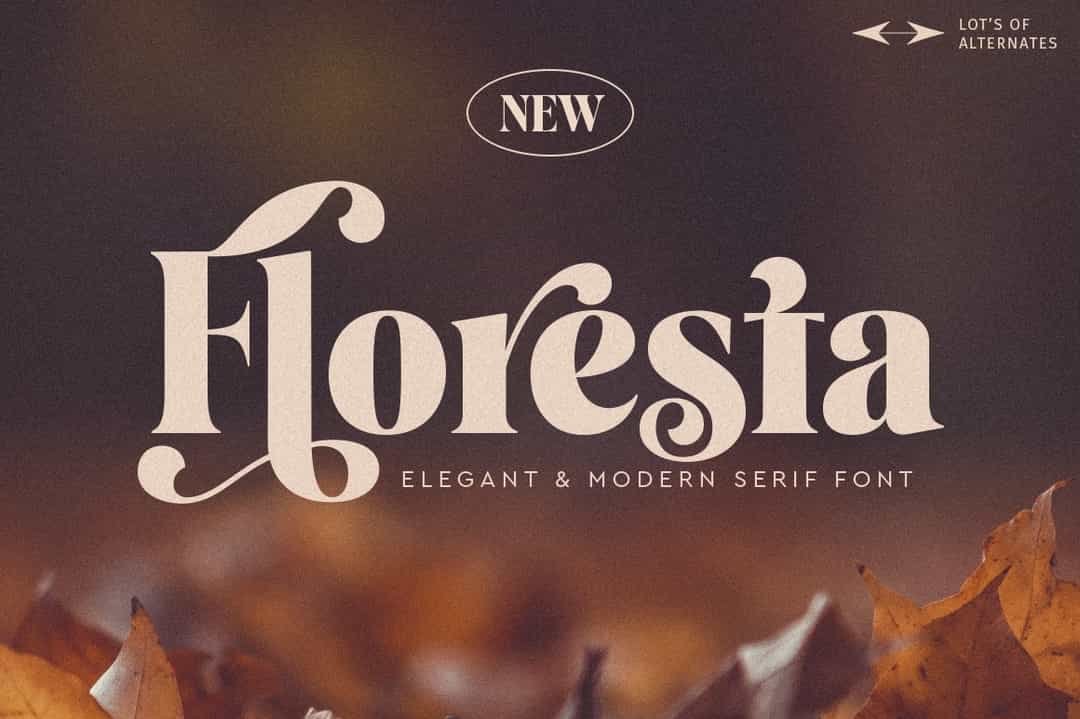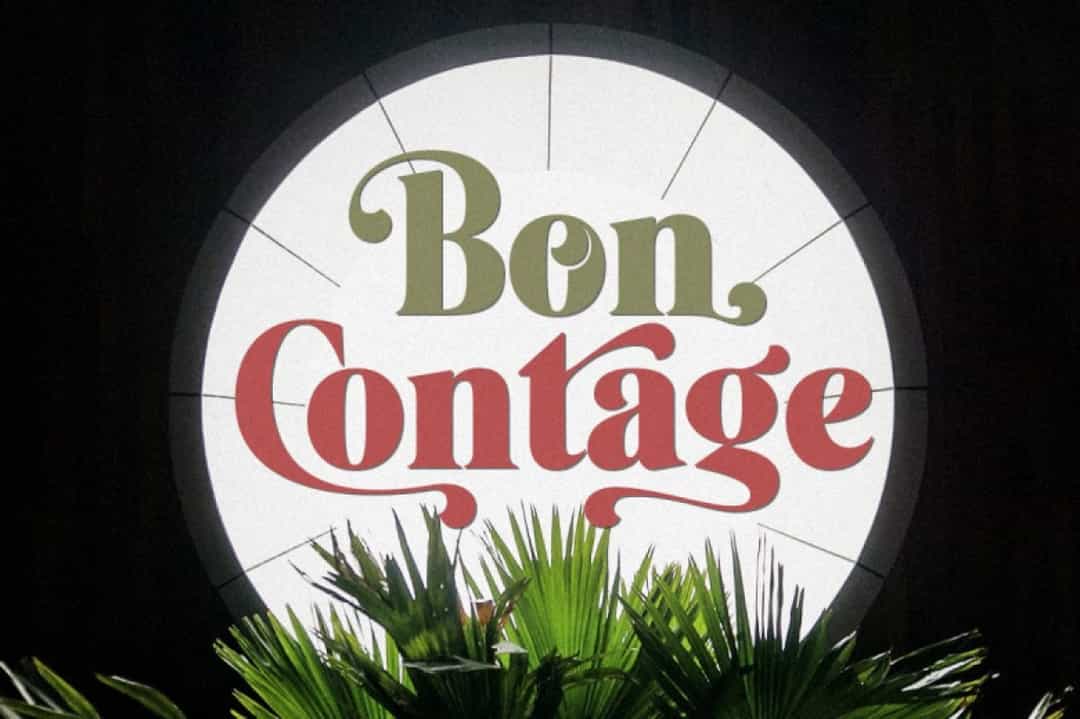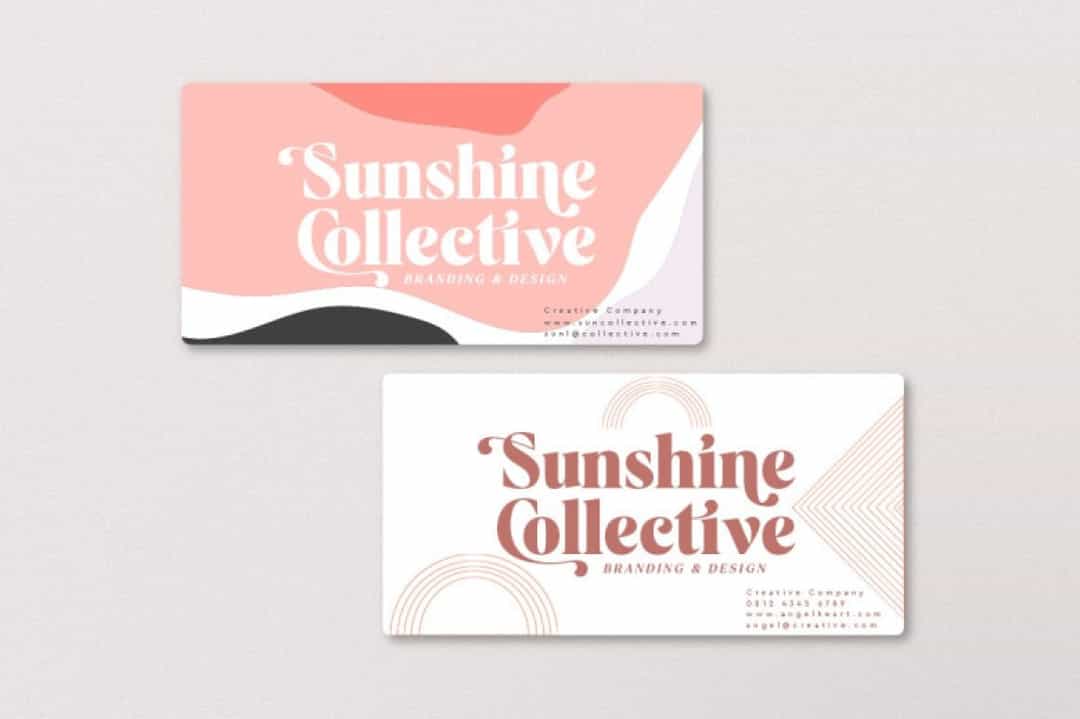
Floresta can be best described as an elegant classic serif font packed in a stylish and contemporary design, accessible with OpenType features that enable access to alternative letters and ligatures. Furthermore, its customizable lowercase letters enable users to create elegant fonts.